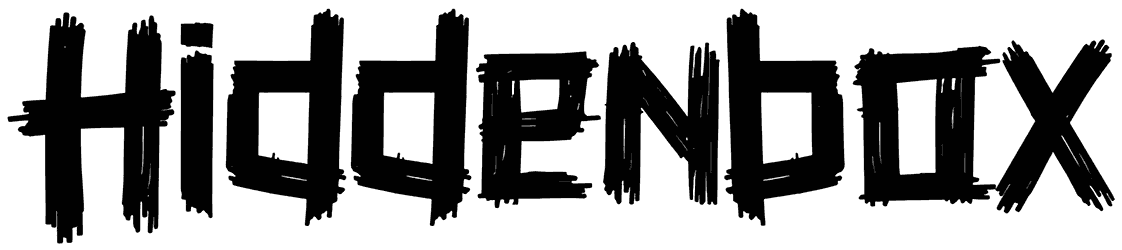
Hiddenbox Font
Designed byYana Kardina
If you are seeking a letterform for your design that can give a painted visual to your letters, Hiddenbox is going to be interesting for you. Unclean lines and borders will create a realistic mood for your design and make it stunning. Test this brush font for your present layout, and if you like the result, enjoy it for free.